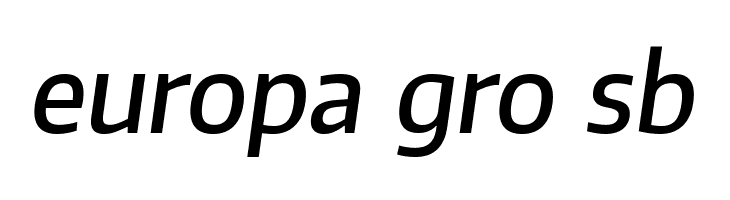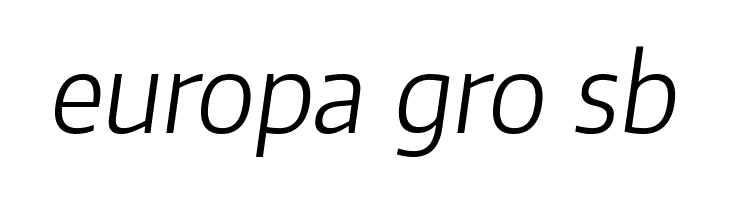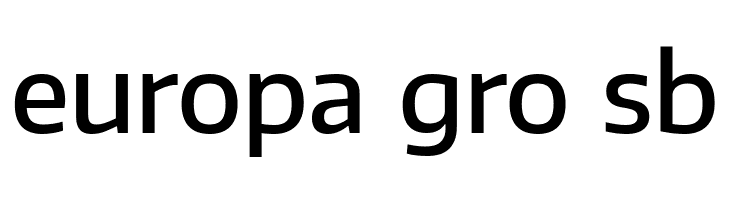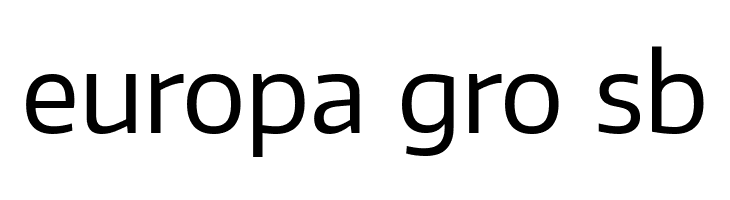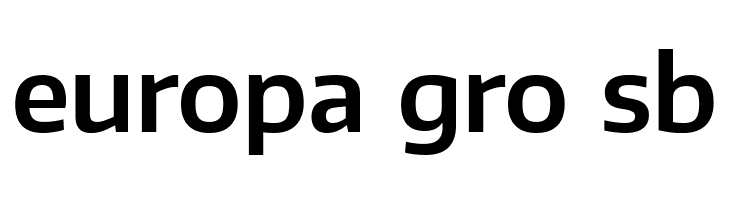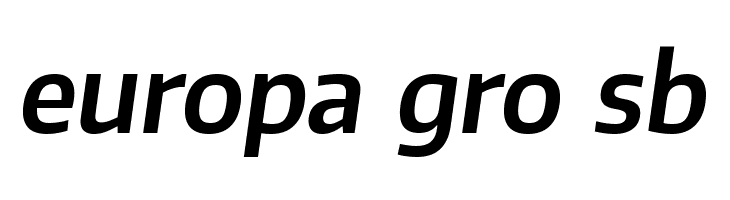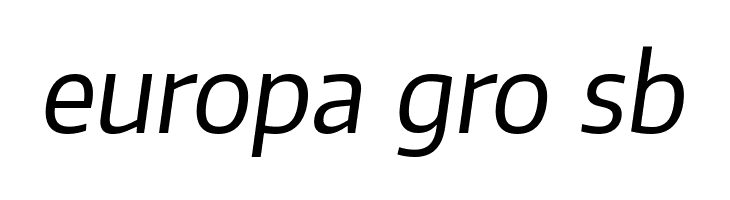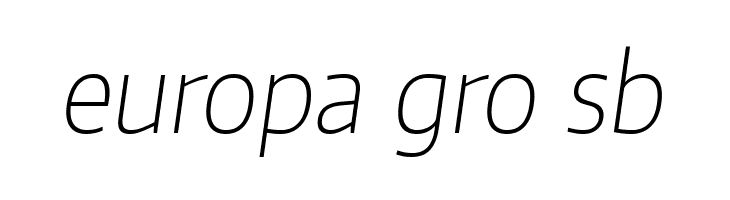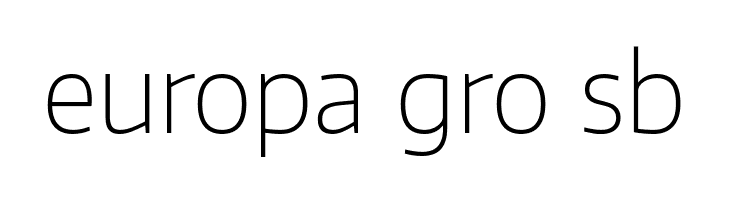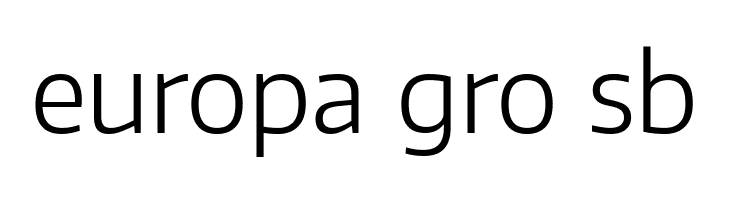
A sleek, modern sans-serif font with an italic slant and consistent stroke width.
A modern, light sans-serif font with clean lines and excellent readability.
A sleek, modern sans-serif font with a light, italic style and low contrast.
A modern sans-serif font with clean lines and balanced proportions.
A modern, medium-weight sans-serif font with an italic style.
A modern sans-serif font with geometric shapes and uniform strokes.
A modern, semi-bold sans-serif font with clean lines and excellent readability.
A sleek, semi-bold italic sans-serif typeface with a modern aesthetic.
A thin, modern sans-serif font with a sleek and minimalist style.
A sleek, modern, and thin italic font with a minimalist aesthetic.